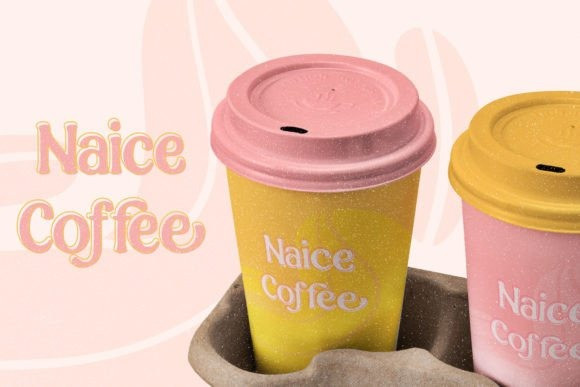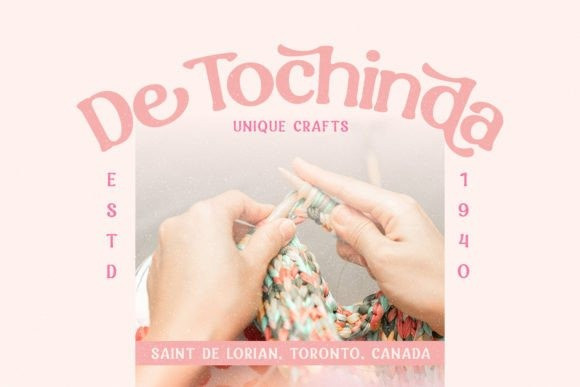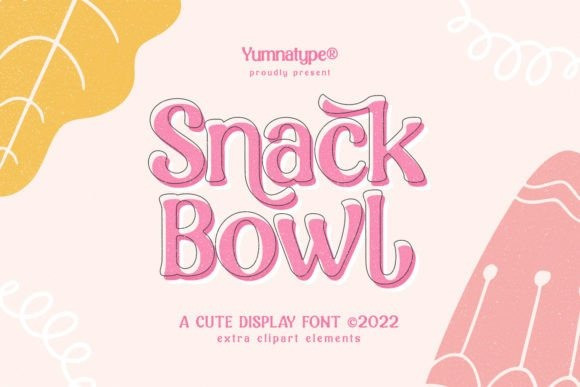
Snack Bowl Font
Snack Bowl Font really knows how to maximize your beautiful design. SnackBowl is a fun and cute display font that comes with a solid weight. It is easy to read and will look great in a variety of header and title sizes.